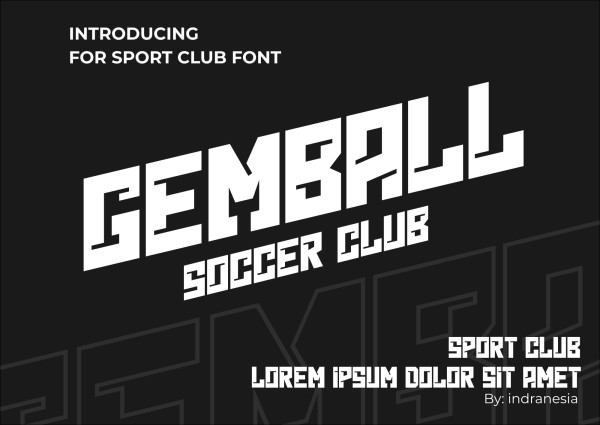
Gemball Font is a sport display font for jersey, poster and more. Its Sans Serif inspired character sporty provide, look that’s perfect for your sport projects that’s call bold.
| Designer Name: | indranesia |
| Classification: | Display Fonts, Techno / Futuristic Fonts |